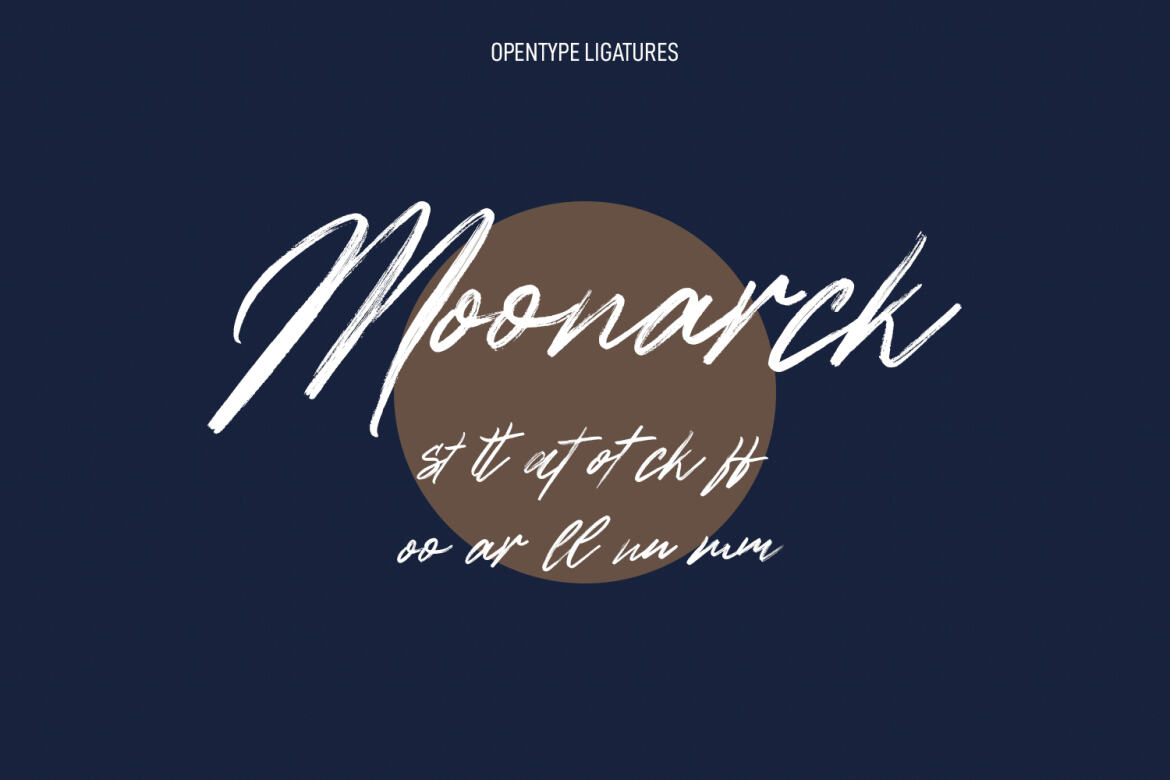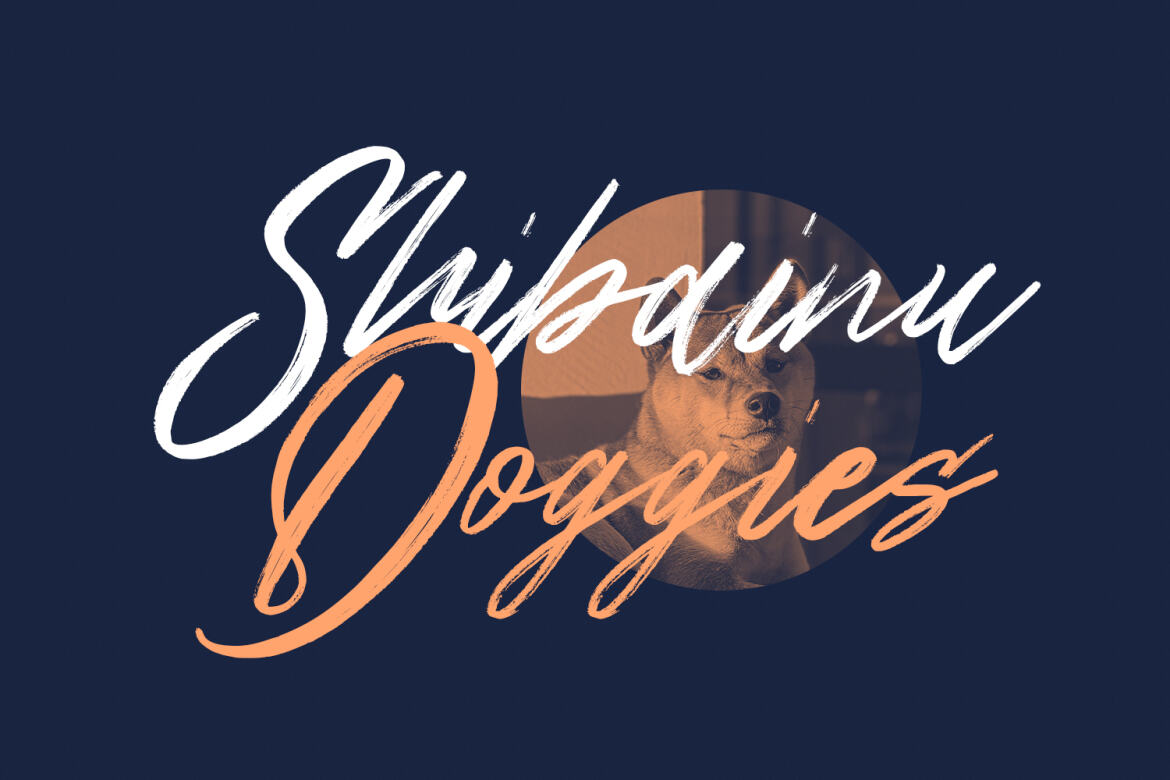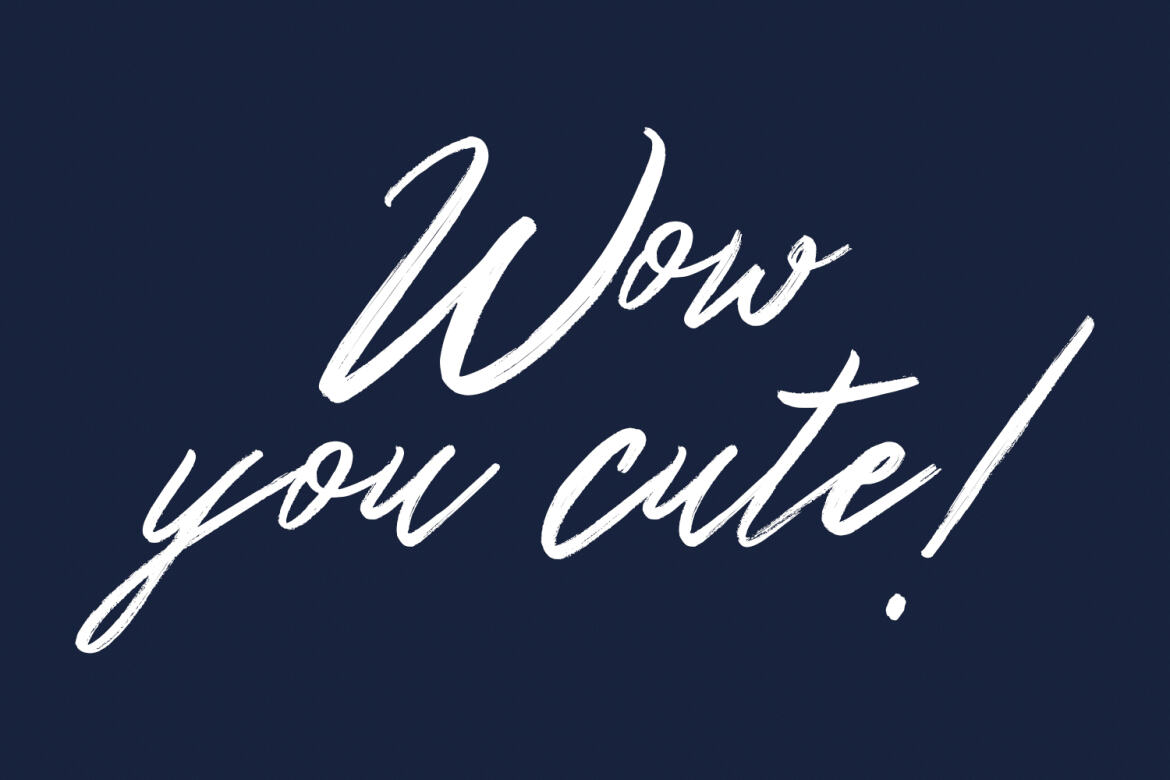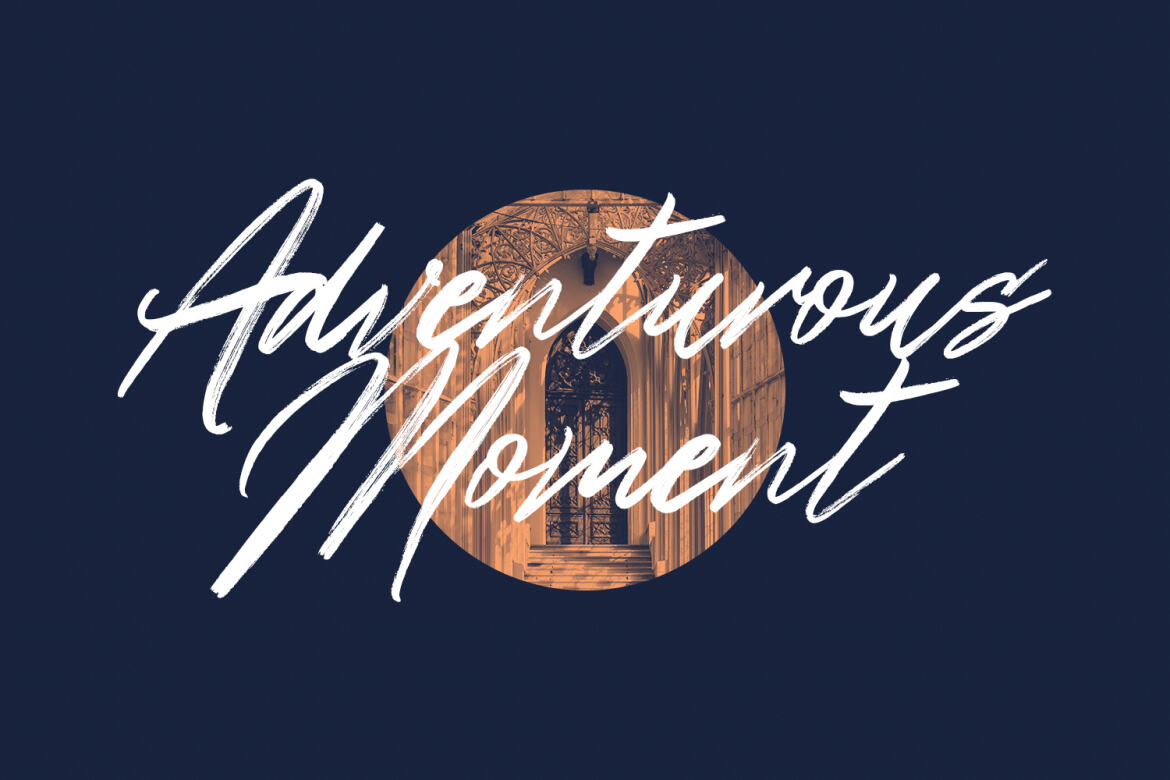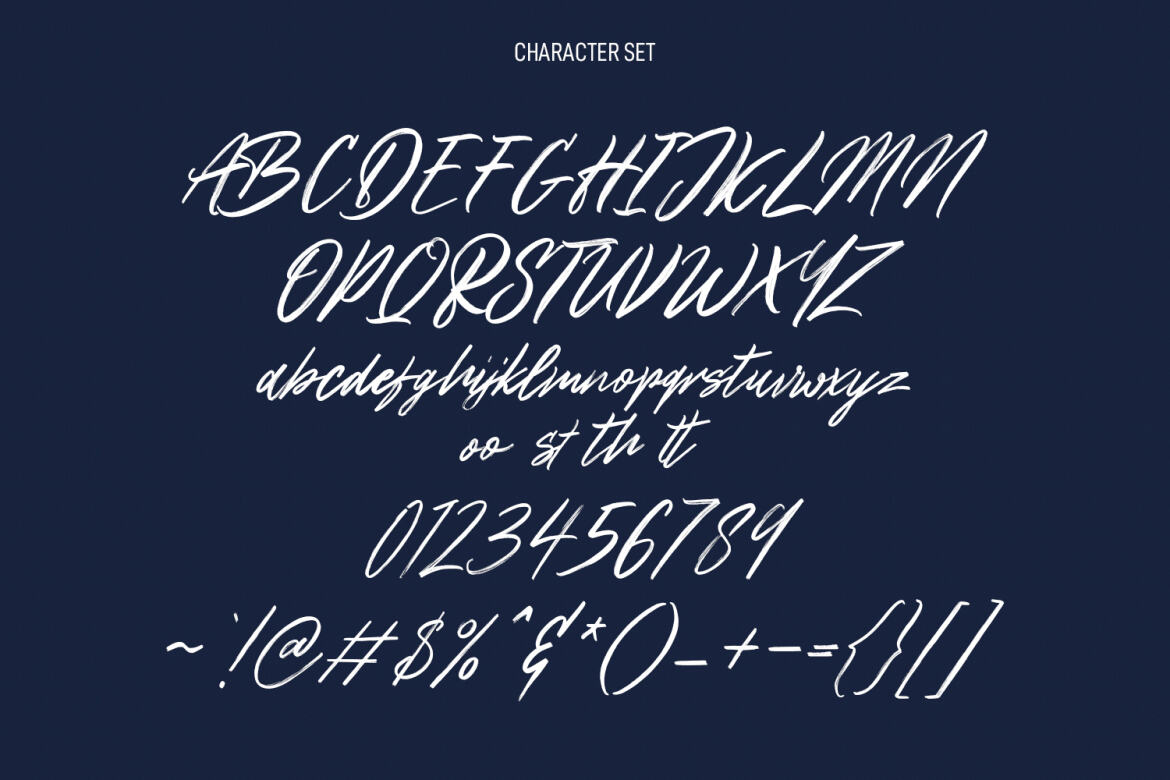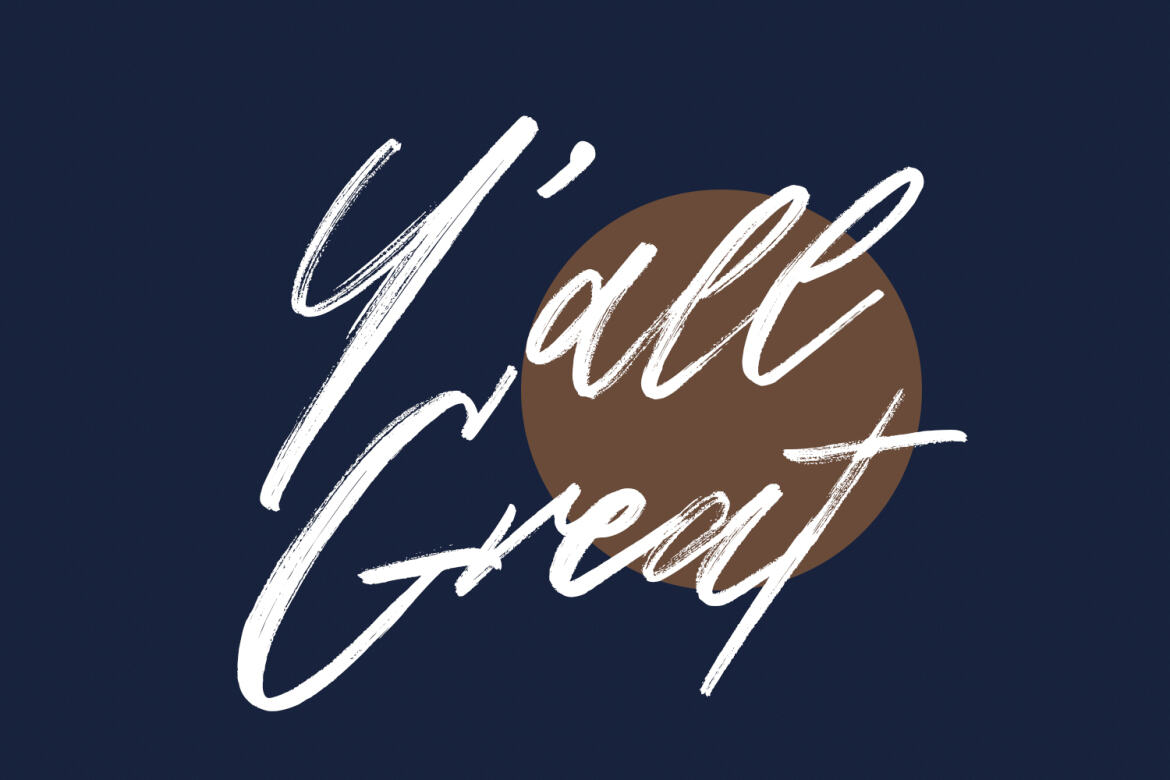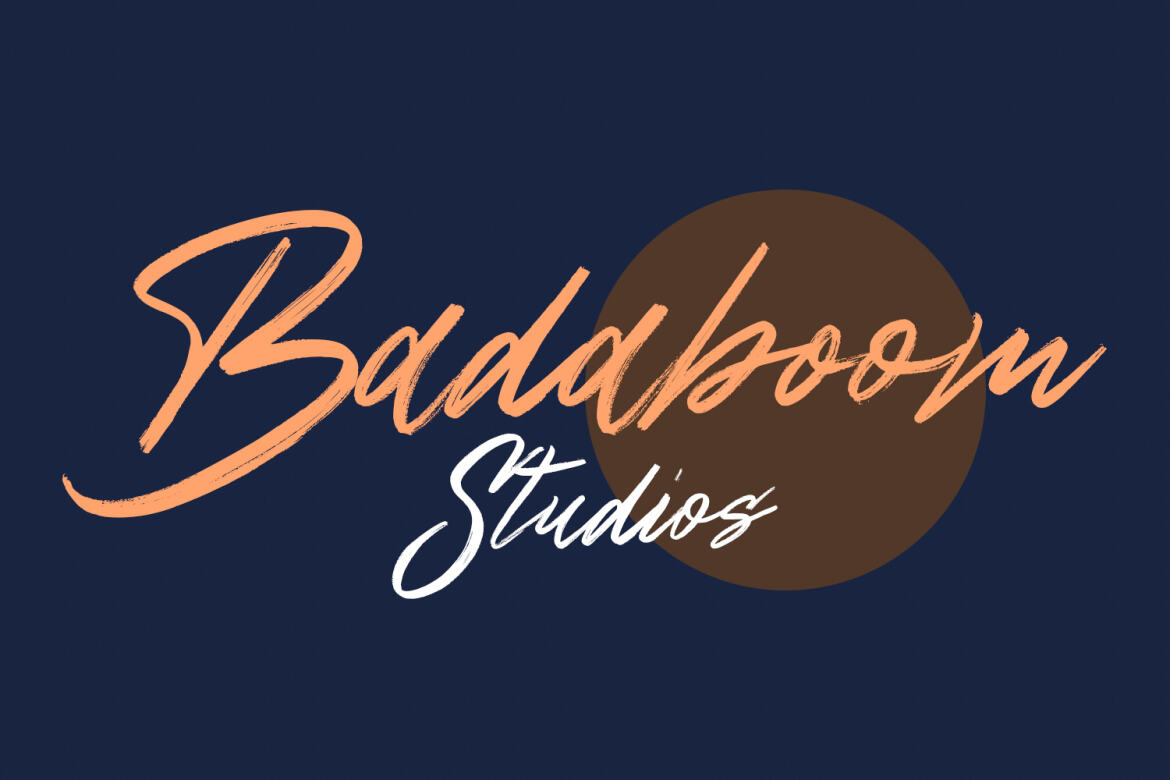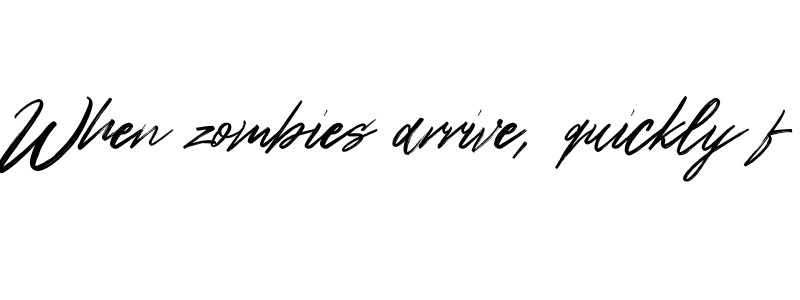
Northloops Brush FREE Script Font
Northloops preview
Northloops
Northloops is an expressive brush script font. With regular rough brush stroke, fun character with some of ligatures. To give you an extra creative work. Northloops font support multilingual more than 100+ language. This font is good for logo design, Social media, Movie Titles, Books Titles, a short text even a long text letter and good for your secondary text font with sans or serif. Make a stunning work with Northloops font.